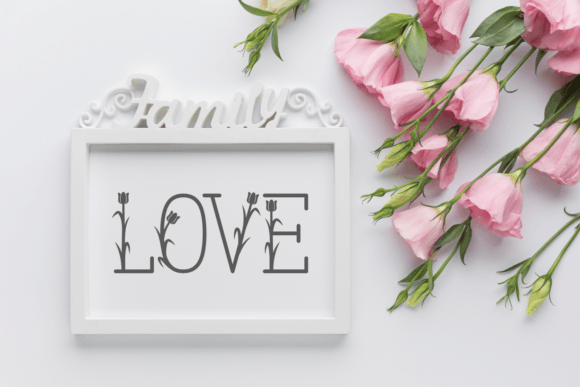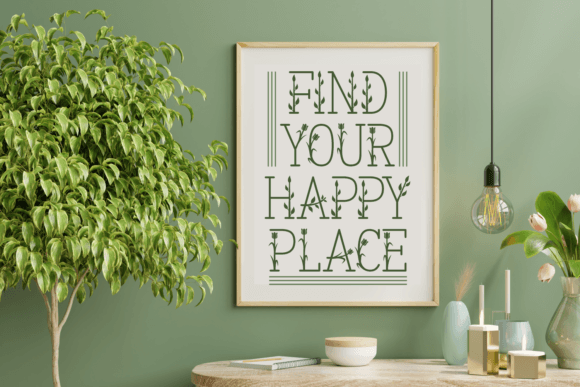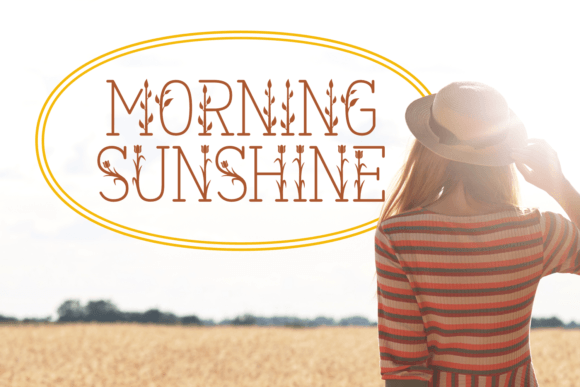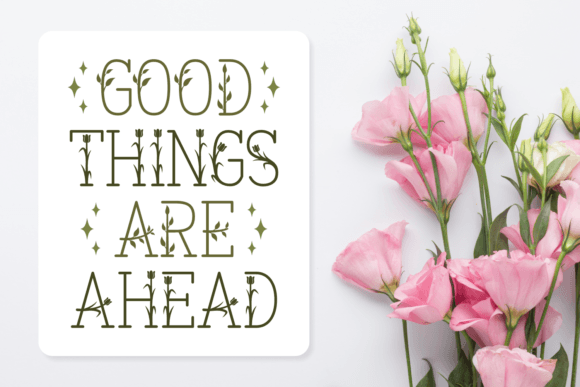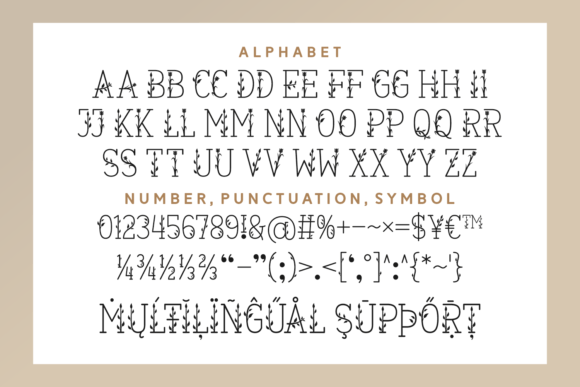
Introduction to Queen Selyna Font
Queen Selyna is a fancy and fresh decorative font with an incredibly unique look.
Add this superb floral typeface to products with a romantic and feminine style, and you’ll love the outcome .